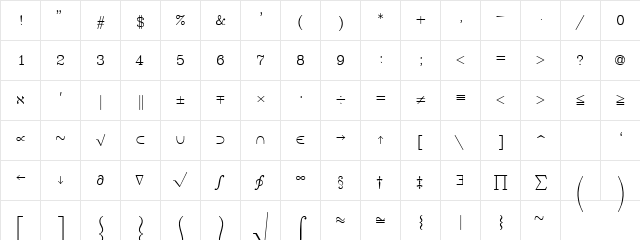
SWMath Regular Font Preview
SWMath Regular
Design Context for SWMath Typeface
SWMath offers clean, dependable letterforms without strong stylistic allegiance, making it a practical choice for designers who need flexibility.